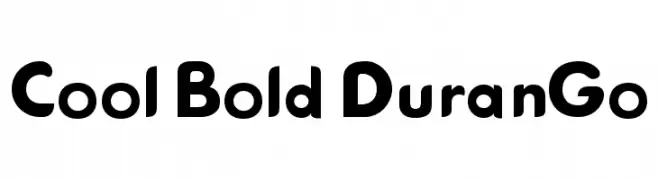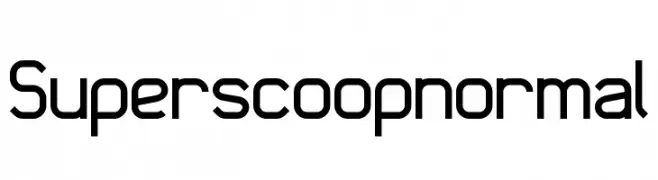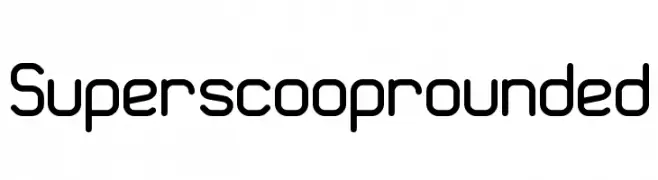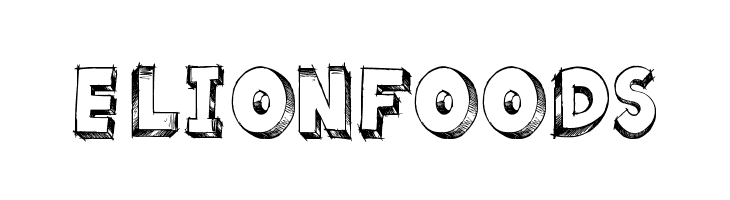
A bold, playful font with thick strokes and whimsical curves.
A playful, sketchy font with a hand-drawn, three-dimensional effect.
A modern, geometric font with clean lines and a structured appearance.
A modern, rounded font with smooth curves and a clean, geometric structure.